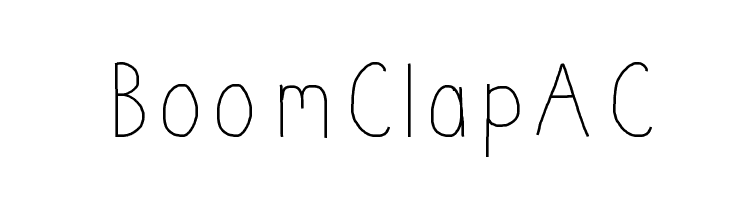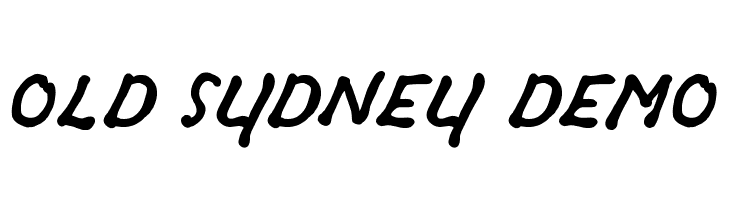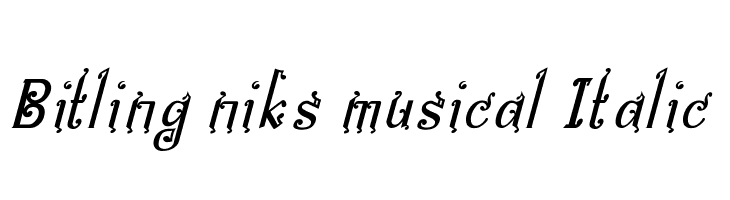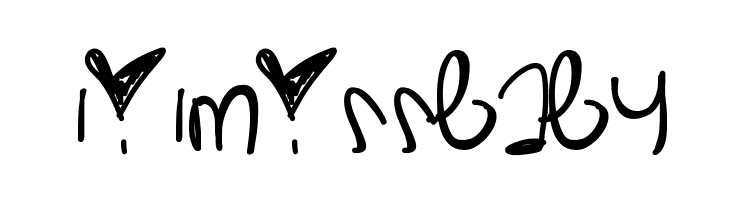
A bold, condensed font with geometric shapes and clean lines.
( Fonts by Isuzu Akatsuki )
A whimsical font with characters designed as cat faces, perfect for playful projects.
( Fonts by FontsandFashion.com )
A playful, handwritten-style font with smooth curves and a casual vibe.
A digital, segmented font with a futuristic, technical appearance.
An ornate and decorative font with intricate curves and flourishes.
A pixelated, retro-style font inspired by early computer systems.
( Fonts by Rajendra Bitling )
A decorative, musical-themed italic font with playful, artistic details.
A bold, rounded font with a modern and playful style.